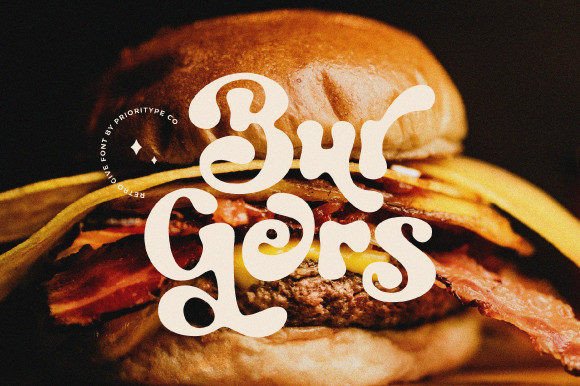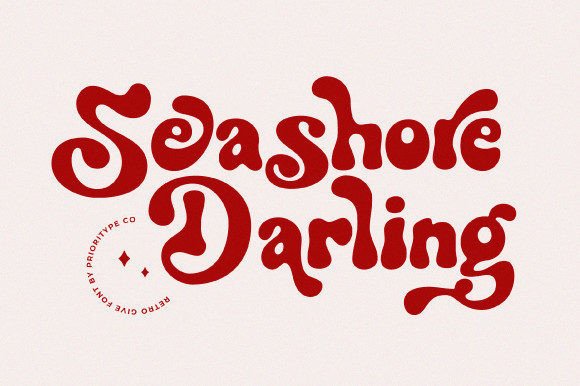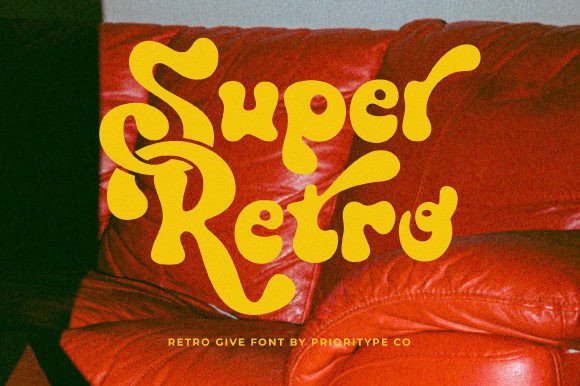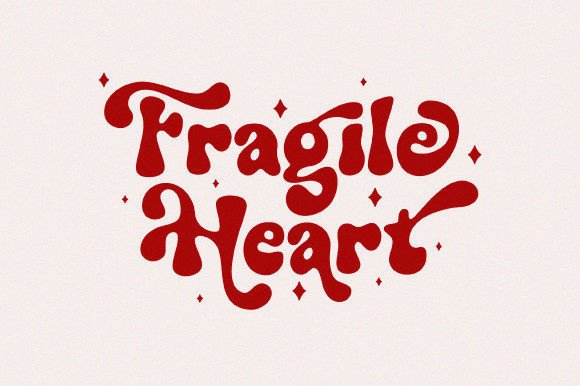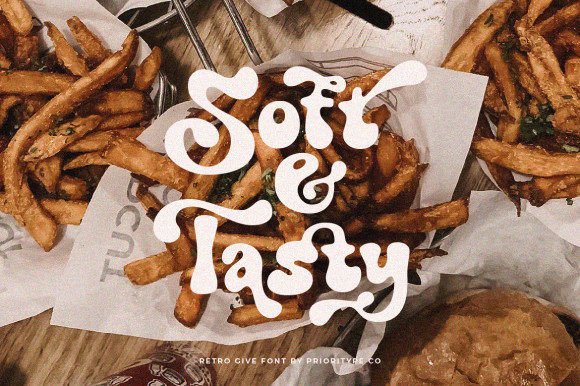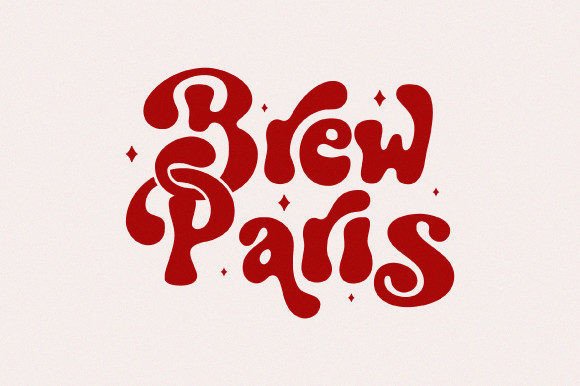
Introduction to Retro Give Font
Remember that moment when you’re brainstorming ideas for a creative project and you stumble upon the perfect font? It’s like a spark of inspiration that sets everything off. For designers, the right font can elevate a concept from bland to grand, and that’s exactly what the Retro Give Font offers.
This bold display font is a treasure trove of fun, chubby characters that are sure to bring a smile to your face. With its wide range of alternative characters, you’ll have endless possibilities to customize and strengthen your visual design. Whether you’re working on branding designs, logos, social media posts, or posters, Retro Give Font is the perfect addition to your design resource.
Key Features of Retro Give Font
- Retro aesthetic with a distressed texture, perfect for adding a vintage touch to creative projects.
- Features a large character set with over 1000 glyphs, including international characters and punctuation.
Honest Review: Retro Give Font
I recently stumbled upon the Retro Give Font while searching for a free design resource to spice up my creative project. At first glance, I was impressed by its unique aesthetic and wide range of applications.
- ✨ Unique and eye-catching design that’s perfect for vintage-themed projects
One of the standout features of the Retro Give Font is its versatility. It’s suitable for a wide range of creative projects, from graphic design to digital art.
- ⚠️ Limited character set, which may not be ideal for extensive text-based projects
Overall, I’m impressed by the Retro Give Font’s unique design and high quality. While it may have some limitations, it’s a great resource for designers looking for a free and creative solution for their projects.
Retro Give Font
For the best results, use the Retro Give Font on a transparent background or a light-colored design to make the font stand out. You can also experiment with different font sizes and colors to create a unique look.
The Retro Give Font is perfect for:
- Designing invitations and greeting cards.
- Creating social media graphics and posts.
- Developing branding materials and logos.
- Adding a touch of nostalgia to your website or blog.
High-Quality Font
The Retro Give Font is a high-quality design resource that offers a unique and charming look. With its transparent background and high-quality design, you can create stunning visuals for your creative project.